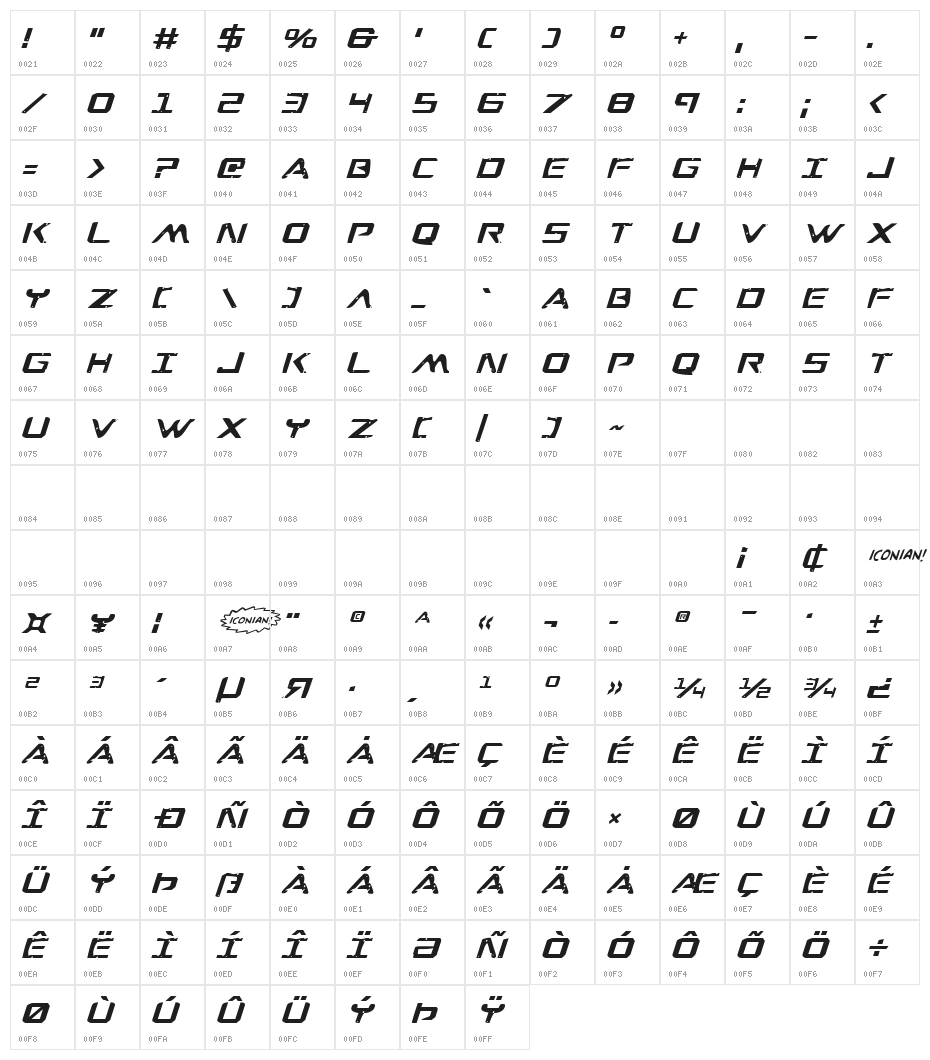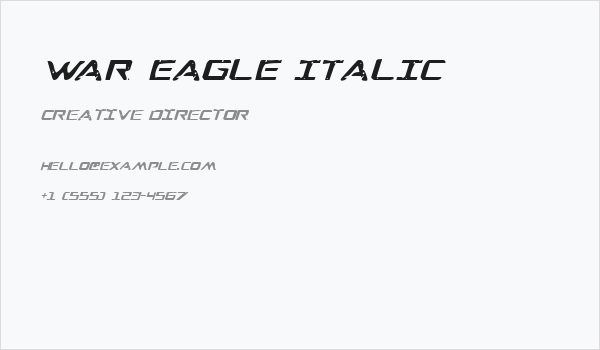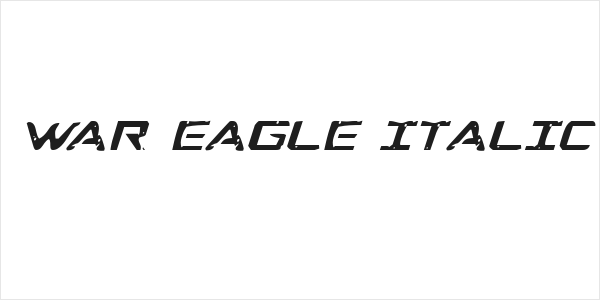
War Eagle Italic Font
War Eagle Italic Description
This font features a bold, italicized style with a modern, edgy appearance. The characters are designed with sharp angles and a slightly distressed look, giving them a dynamic and aggressive feel. The uppercase and lowercase letters maintain a consistent slant, enhancing the italic effect. The numbers and special characters follow the same design principles, ensuring uniformity across all glyphs. The font's unique style makes it stand out, suitable for projects that require a strong visual impact.
WAR-EAGLE-ITALIC UPPERCASE
WAR-EAGLE-ITALIC LOWERCASE
WAR-EAGLE-ITALIC OTHER CHARS